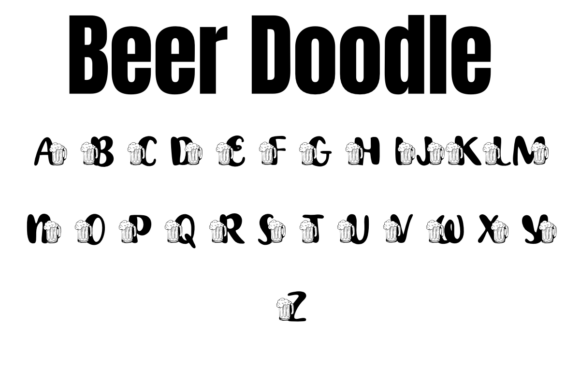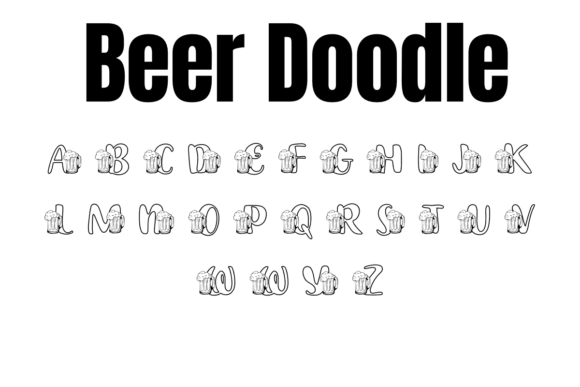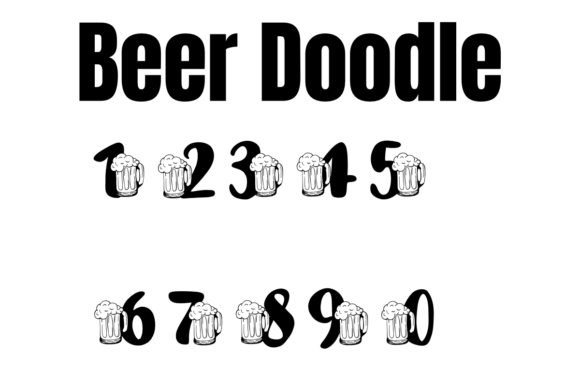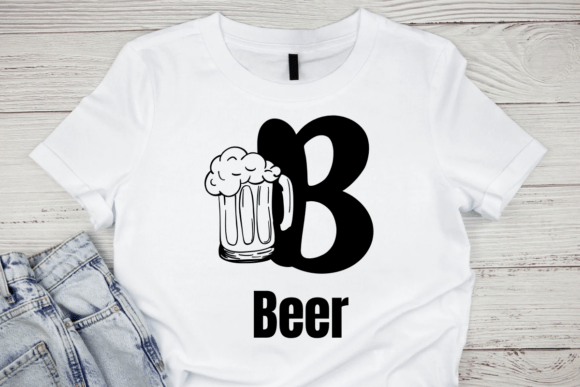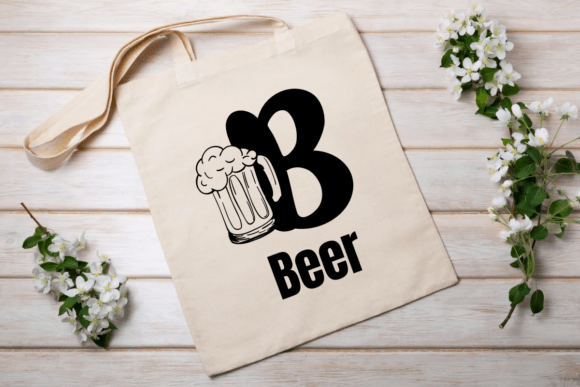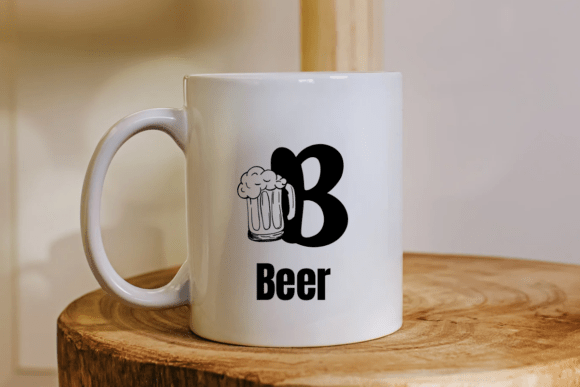
Bring the Party to Your Layouts with the Beer Doodle Font
Are you looking for a font that can add a touch of fun and excitement to your designs? Look no further than the Beer Doodle font! This high-energy decorative typeface is perfect for the hospitality and entertainment industry, and is sure to make your craft brewery menus, pub event posters, and backyard BBQ invitations stand out.
What is the Beer Doodle Font?
The Beer Doodle font is a unique and playful typeface that combines bold lettering with hand-drawn brew illustrations. The font features quirky, bubbly characters paired with frothy mug and bottle doodles that inject an instant sense of fun and relaxation into any design. The result is a font that is both eye-catching and engaging, making it perfect for projects that prioritize good vibes and great times.
Perfect for the Hospitality and Entertainment Industry
The Beer Doodle font is specifically designed for the hospitality and entertainment industry, making it a standout choice for a variety of applications. Whether you’re creating menus for a craft brewery, posters for a pub event, or invitations for a backyard BBQ, this font is sure to bring the party to your layouts. The font’s playful and energetic vibe is perfect for creating a fun and lively atmosphere that will appeal to customers and attendees.
Design Possibilities are Endless
One of the best things about the Beer Doodle font is its versatility. You can pair it with a heavy block sans-serif for a rugged “man-cave” aesthetic, or use it solo to create eye-catching merchandise for beer festivals and social gatherings. The font’s hand-drawn illustrations and bold lettering make it a great choice for a variety of design projects, from signage and posters to social media graphics and more.
Key Features of the Beer Doodle Font
• Hand-drawn brew illustrations: Each character in the Beer Doodle font is carefully illustrated with hand-drawn brew-themed elements, such as frothy mugs and bottles.
• Quirky, bubbly characters: The font features playful and energetic characters that are sure to add a touch of fun to your designs.
• Bold lettering: The Beer Doodle font features bold, eye-catching lettering that is perfect for creating attention-grabbing headlines and titles.
• High-energy vibe: The font’s playful and energetic vibe is perfect for creating a fun and lively atmosphere in your designs.
How to Use the Beer Doodle Font
The Beer Doodle font is easy to use and can be incorporated into a variety of design projects. Here are a few ideas to get you started:
• Craft brewery menus: Use the Beer Doodle font to create eye-catching menus for your craft brewery that showcase your beers and add a touch of fun to your branding.
• Pub event posters: Create attention-grabbing posters for pub events, such as live music nights or trivia events, using the Beer Doodle font.
• Backyard BBQ invitations: Add a touch of fun to your backyard BBQ invitations with the Beer Doodle font, complete with hand-drawn illustrations of burgers, hot dogs, and cold beers.
• Merchandise: Use the Beer Doodle font to create eye-catching merchandise, such as t-shirts, stickers, and beer glasses, for beer festivals and social gatherings.
The Beer Doodle font is a unique and playful typeface that is perfect for the hospitality and entertainment industry. With its hand-drawn brew illustrations, quirky characters, and bold lettering, this font is sure to bring the party to your layouts and add a touch of fun to your designs. Whether you’re creating menus for a craft brewery, posters for a pub event, or invitations for a backyard BBQ, the Beer Doodle font is a great choice. So why wait? Download the Beer Doodle font today and start creating eye-catching designs that prioritize good vibes and great times!